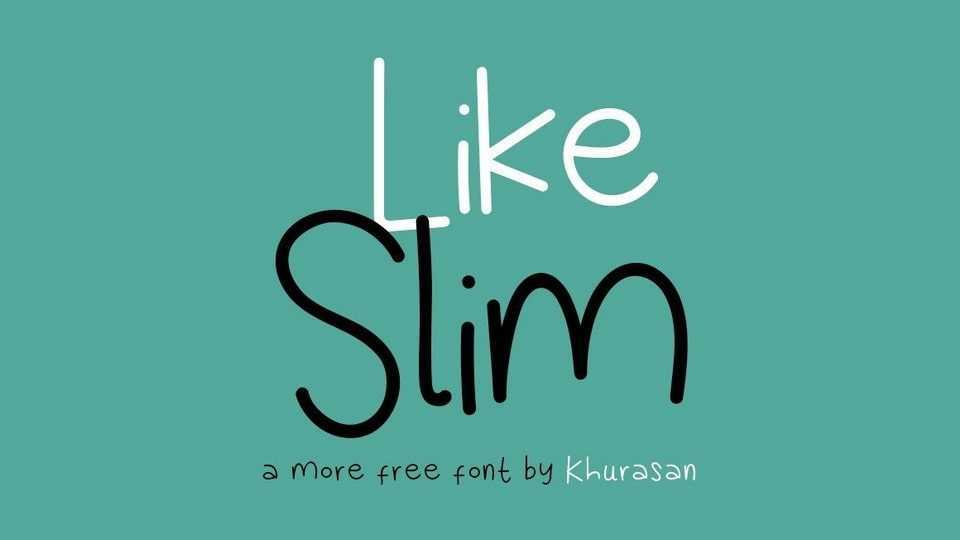
Download Like Slim font, a playful and bouncy handwritten typeface. Like Slim is perfect for posters, logos, magazines, book covers, banners and other lovely designs.